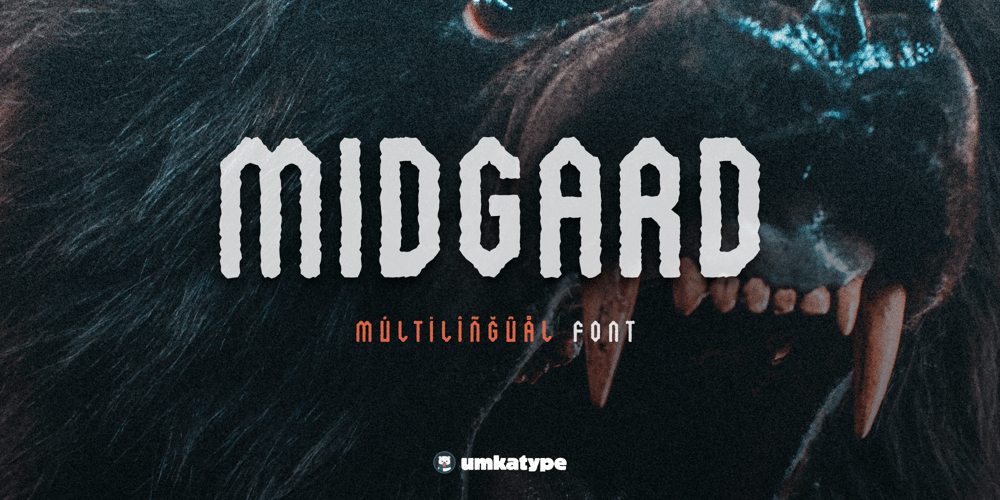
Midgard Font Family was designed by Alper Çakıcı and published by Umka Type. Midgard contains 1 styles and family package options. Midgard is a rough, geometric and versatile font with excellent kerning, making it ideal for both digital and print use. It features full support for the Cyrillic language, allowing for seamless multilingual communication. The font’s unique design combines classic proportions with a contemporary feel, making it stand out from other same categories fonts.